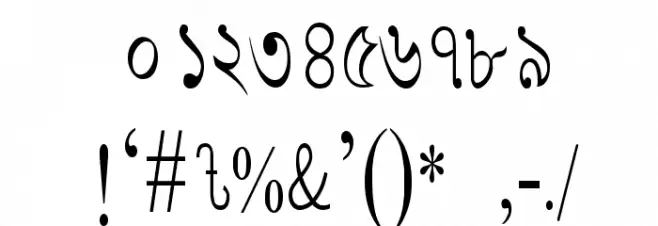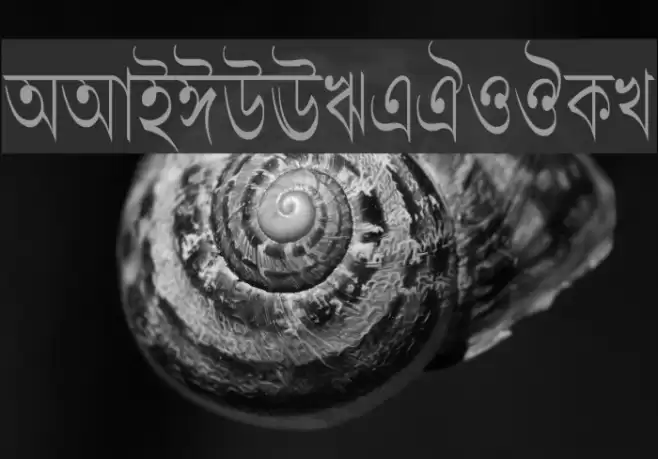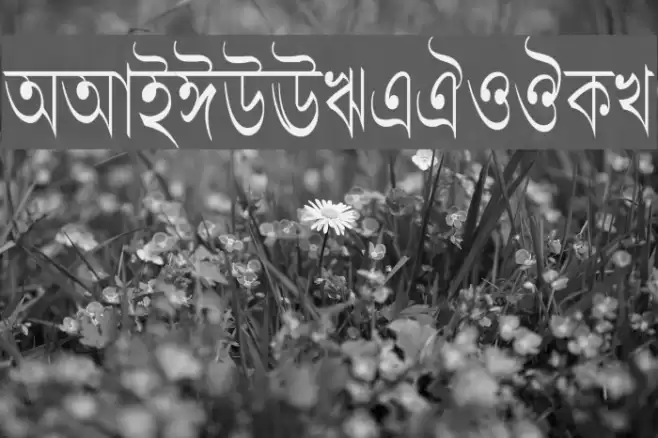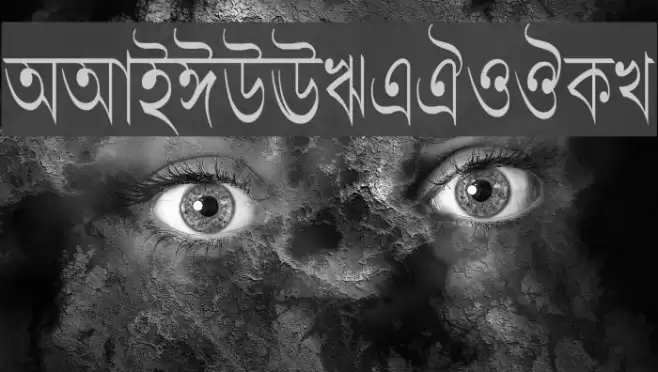
LipiCon Font
LipiCon Description
This font features a distinctive and elegant design, characterized by its flowing curves and intricate details. The script is reminiscent of traditional calligraphy, with a modern twist that makes it suitable for contemporary use. The characters are well-balanced, with a harmonious blend of thick and thin strokes that add a dynamic quality to the text. The numerals and special characters are crafted with the same attention to detail, ensuring consistency across the entire typeface. This font is ideal for projects that require a touch of sophistication and cultural richness.
An elegant, calligraphic font with intricate details and flowing curves from Uncategorized fonts.
- Proposed Projects: Ideal for wedding invitations, cultural event posters, and artistic branding.
- Overall Style: Classic
- Use Case: Logos, Invitations, Artistic projects